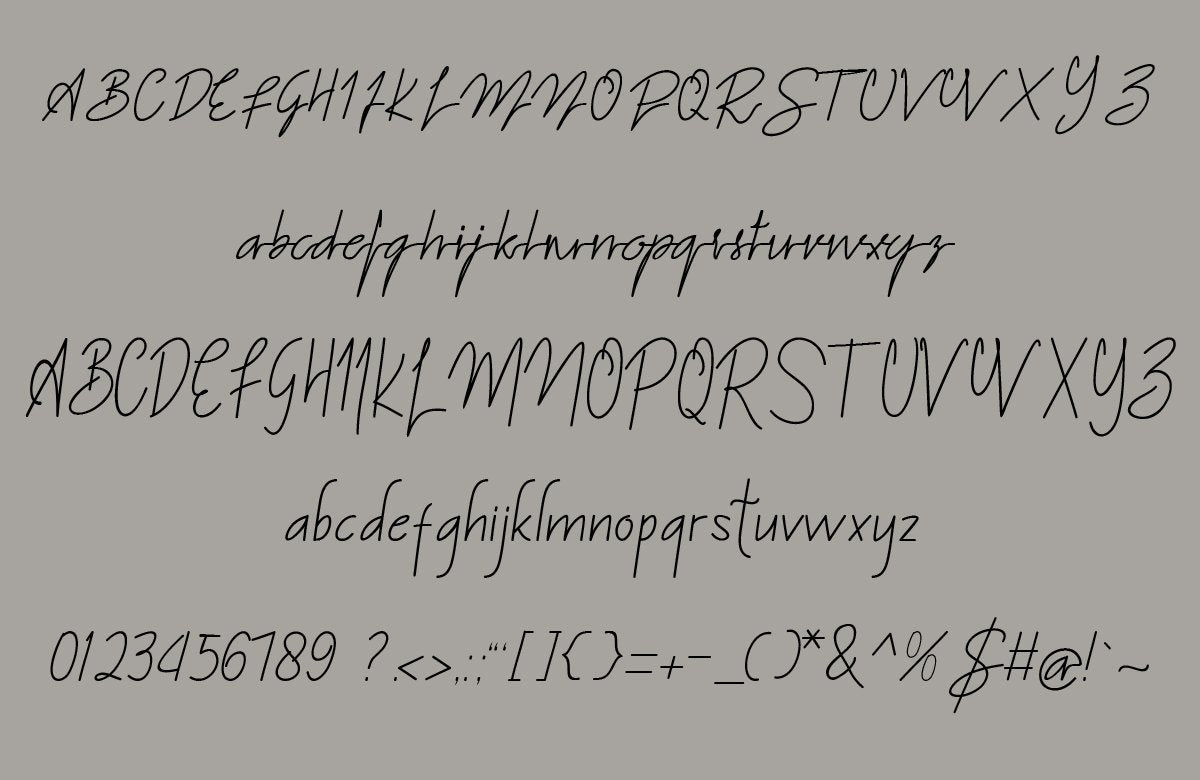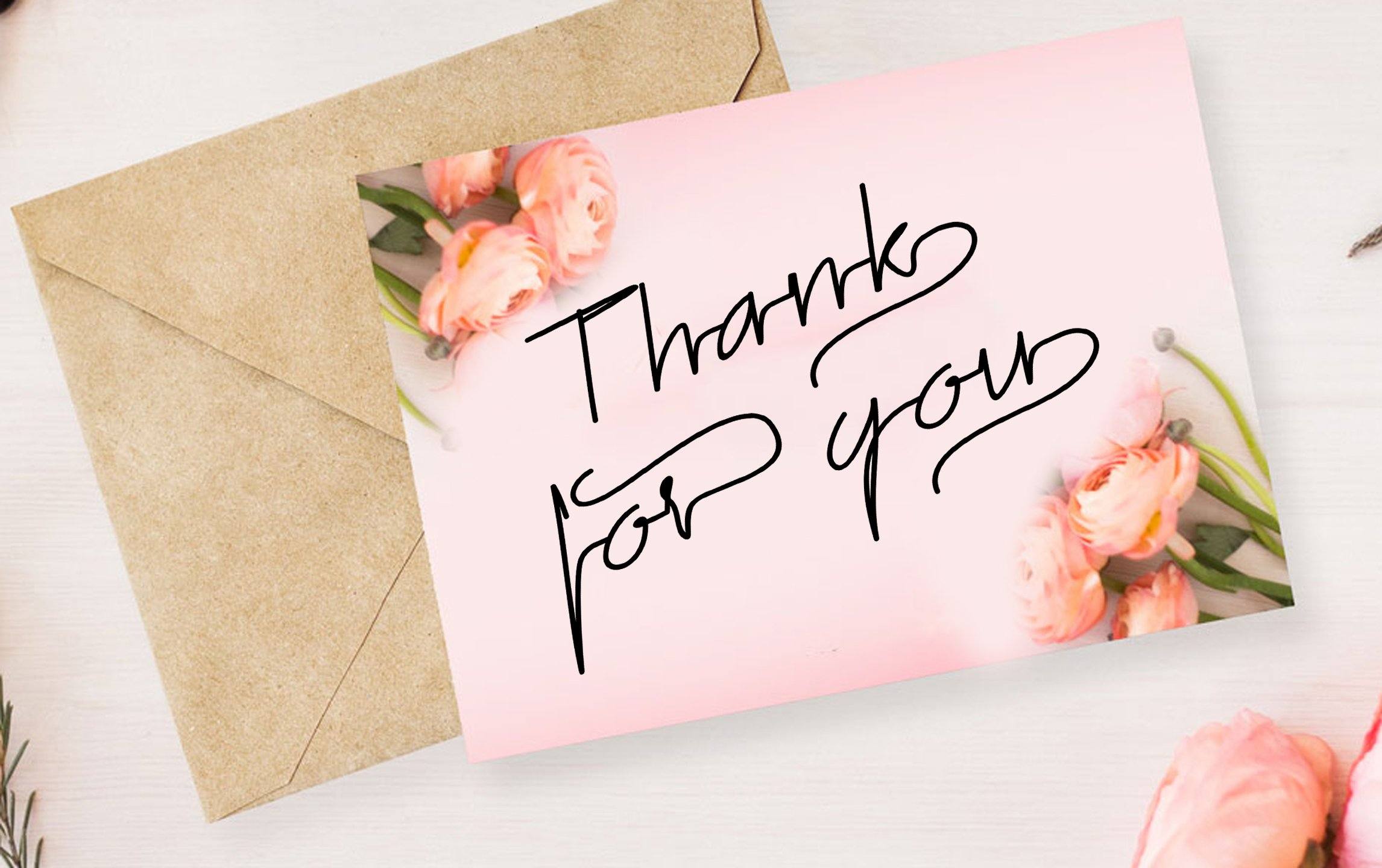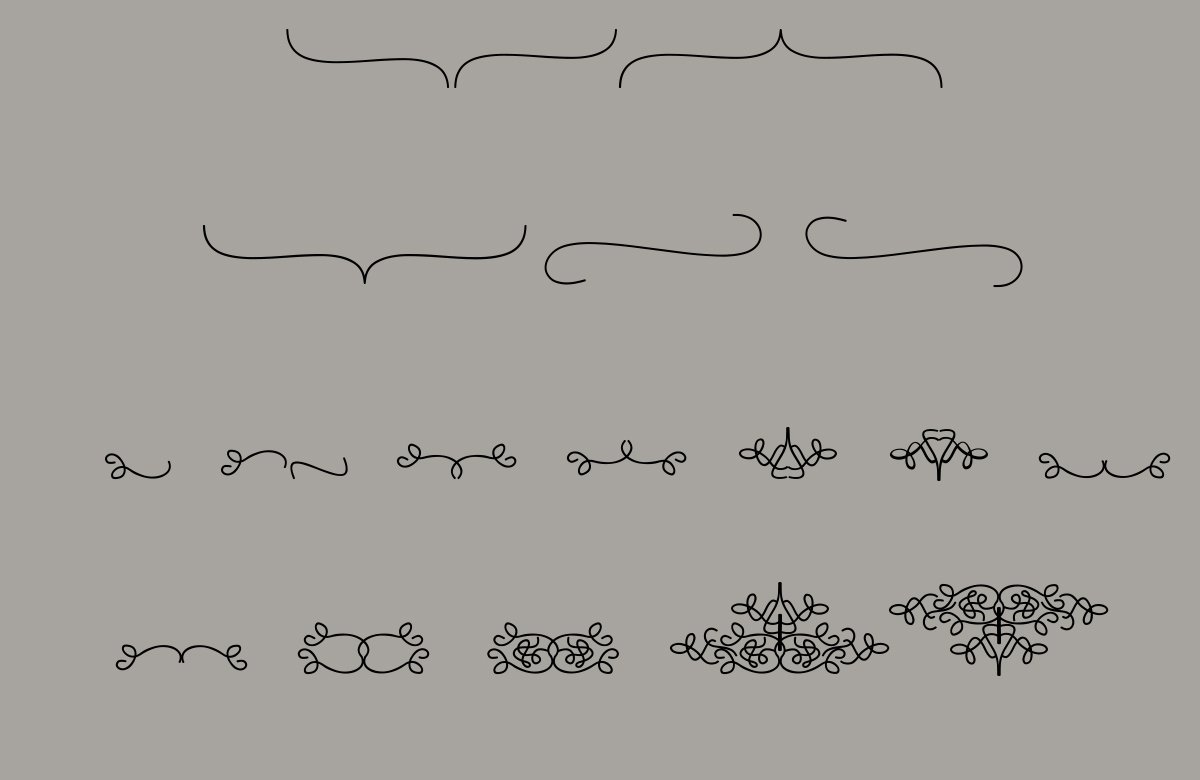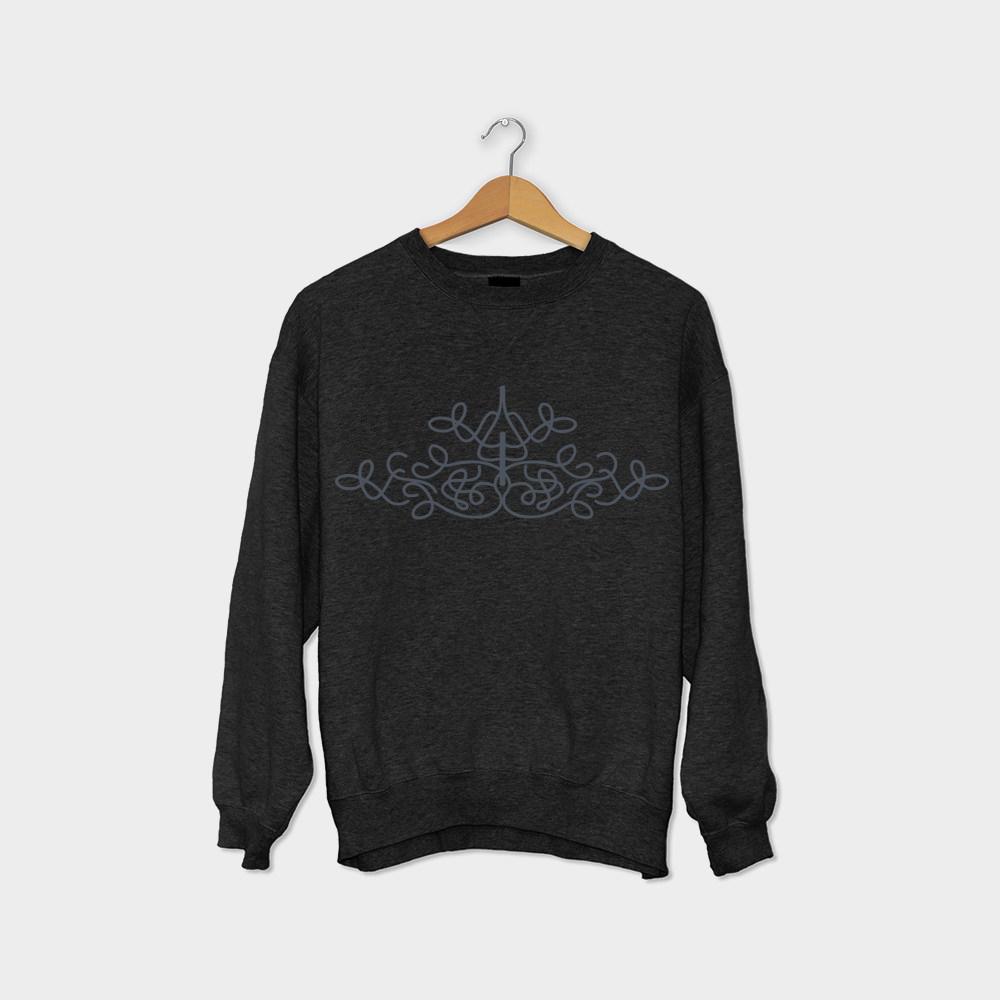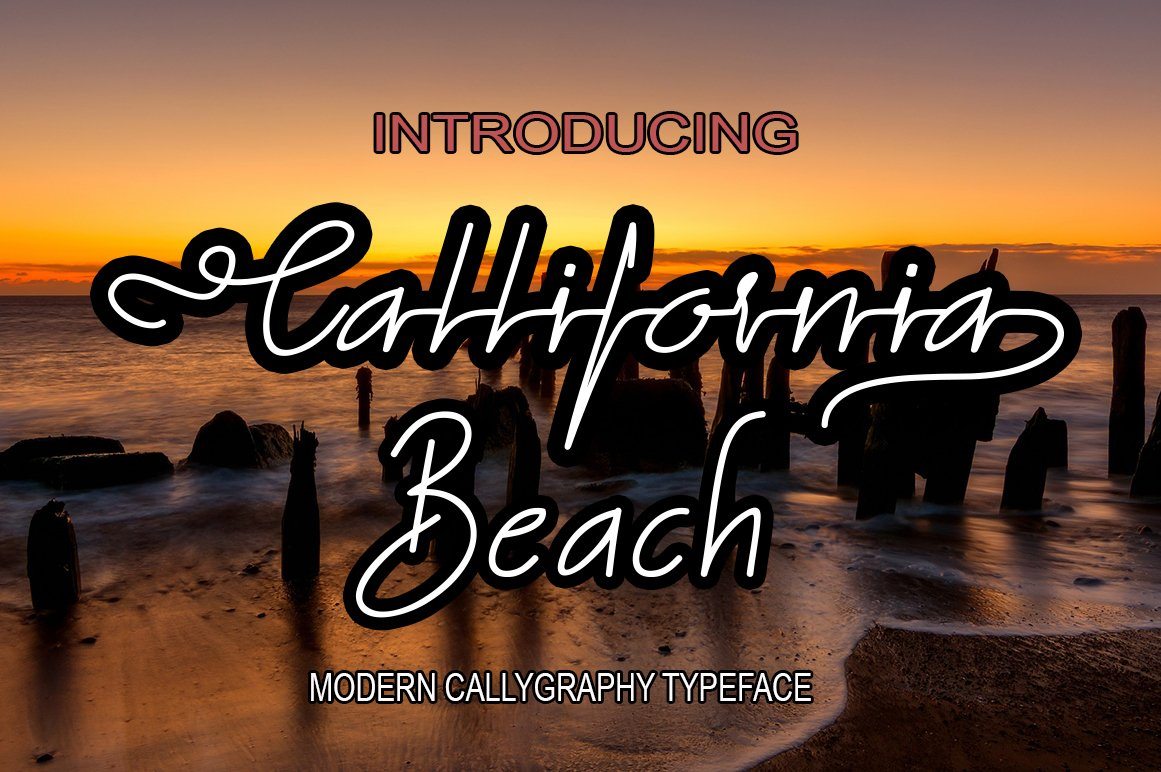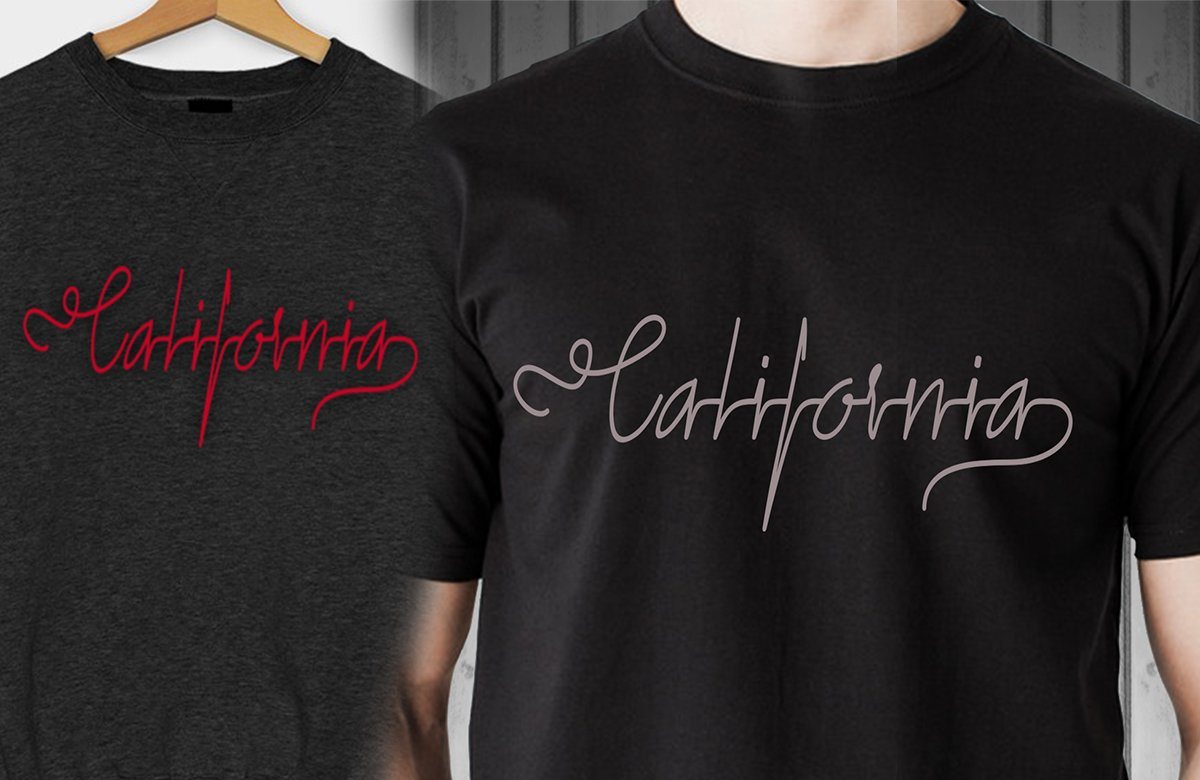
California beach font duo
About California beach font duo
Hello, all. I Want To Introduce New Fonts California beach font duo Script Cealifornia beach font duo Script New fresh & modern style with handmade calligraphy, decorative characters and dancing lineage! So wonderful are invitations like greeting cards, branding material, business cards, quotes, posters, and mor !! California beach font duo Script Alternate characters are divided into several Open Type features such as Swash, Stylistic Sets, Stylistic Alternate, Contextual Alternate. Open Type features are accessible by using Open Type savvy programs such as Adobe Illustrator, Adobe InDesign, Adobe Photoshop Corel Draw X versions, and Microsoft Word. And this font has code PUA unicode (font with special code). So that all alternative characters can be easily accessed by craftsmen or designers. Cealifornia beach font duo Script New fresh & modern style with handmade calligraphy, decorative characters and dancing lineage! So wonderful are invitations like greeting cards, branding material, business cards, quotes, posters, and mor California beach font duo Script Alternate characters are divided into several Open Type features such as Swash, Stylistic Sets, Stylistic Alternate, Contextual Alternate. Open Type features are accessible by using Open Type savvy programs such as Adobe Illustrator, Adobe InDesign, Adobe Photoshop Corel Draw X versions, and Microsoft Word. And this font has code PUA unicode (font with special code). So that all alternative characters can be easily accessed by craftsmen or designers. California beach font duo Script Uppercase & lowercase International signature & symbol Punctuation Support & PUA number Unicode Style Style Alternative Style Contextual Character Variations. ZIP files include the following: California beach font duo.OTF Script California beach font duo.TTF Script If you do not have programs that support OpenType features like Adobe Illustrator and CorelDraw X Versions, you can access all alternative flying machines using Font Book (Mac) or Character Map (Windows). If you have any questions, please feel free to contact me via email  Thanks and good luck 🙂 Thank you for buying!